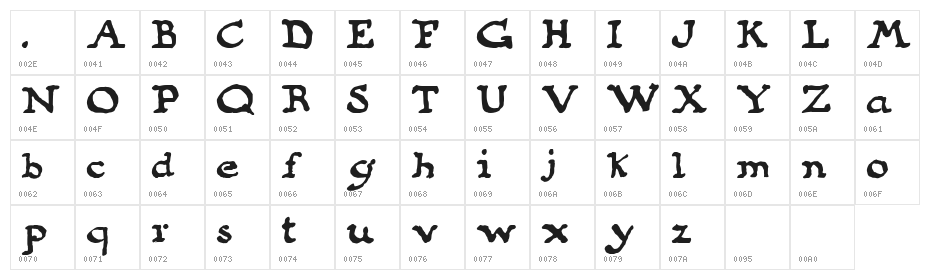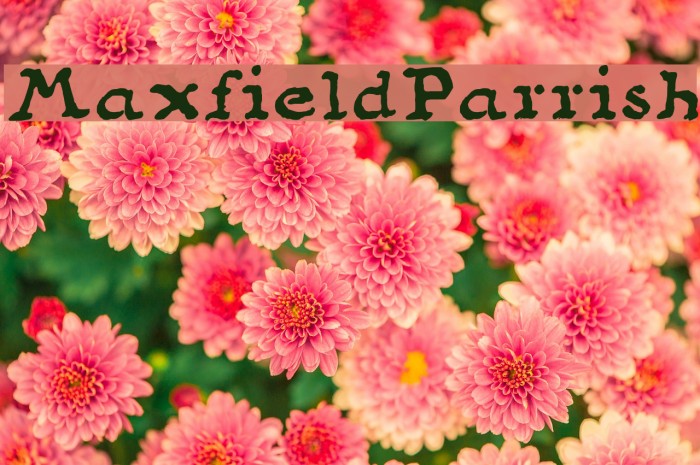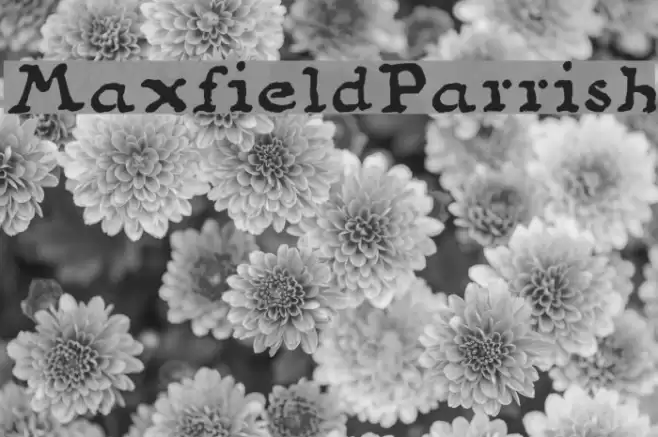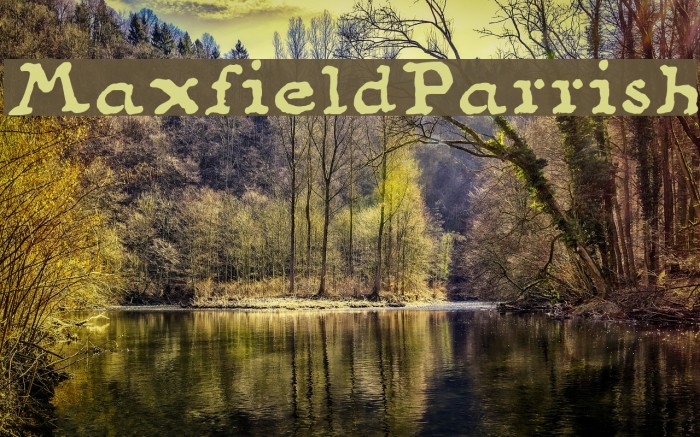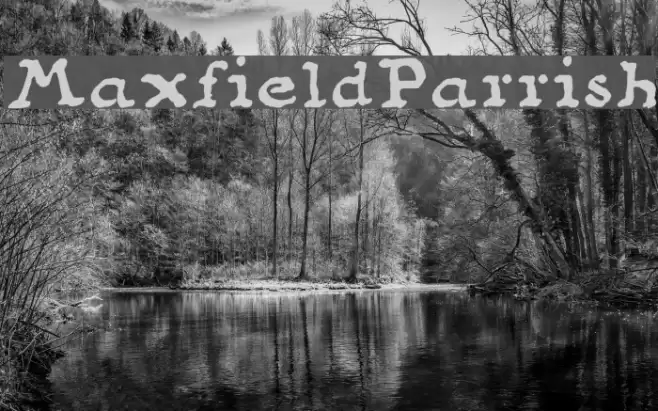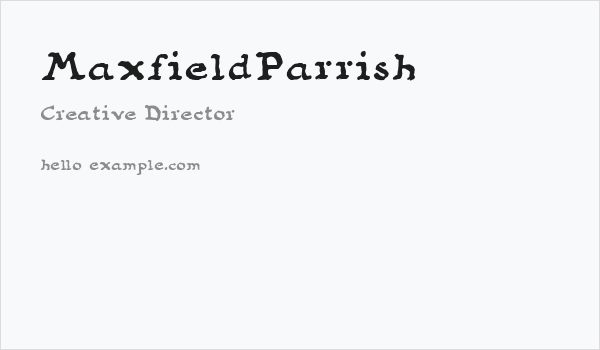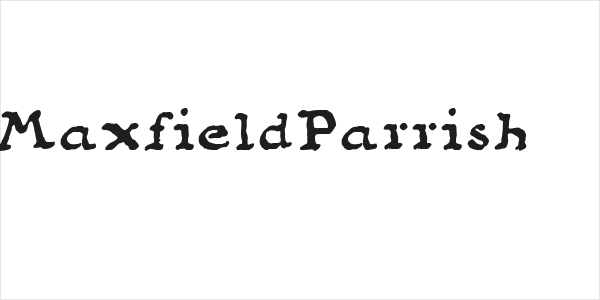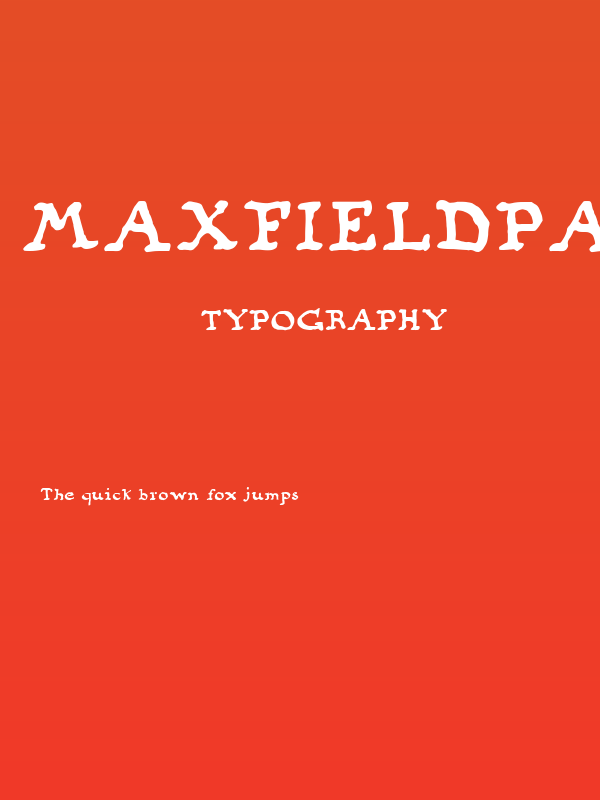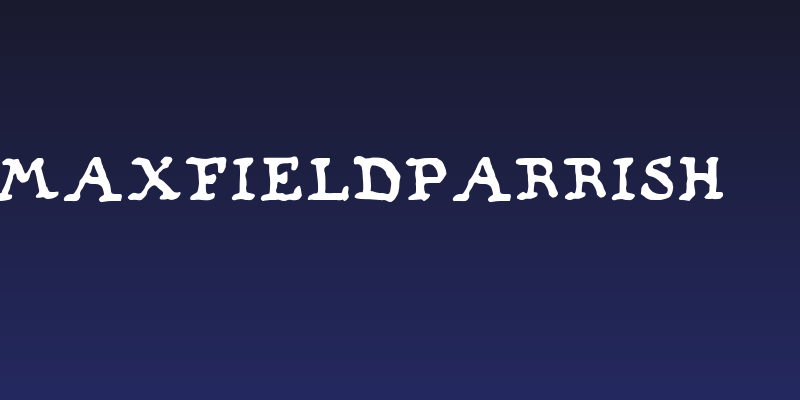
MaxfieldParrish140 Font
MaxfieldParrish140 Description
This font features a unique, hand-drawn style with irregular, slightly rough edges that give it a rustic and artistic appearance. The characters are bold and have a playful, whimsical quality, reminiscent of vintage or historical scripts. The uppercase letters are slightly larger and more pronounced, while the lowercase letters maintain a consistent style with subtle variations in stroke thickness. The font includes a full set of uppercase and lowercase letters, numbers, and a selection of special characters, making it versatile for various design needs.
| Overall Style | Vintage, Artistic |
| Use Case | Headlines, Logos, Artistic projects |
| Proposed Projects | Ideal for artistic projects, vintage-themed designs, children's book illustrations, and creative branding. |